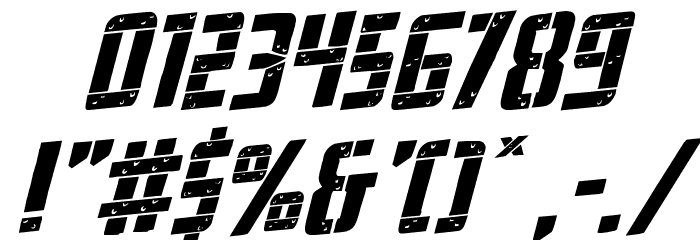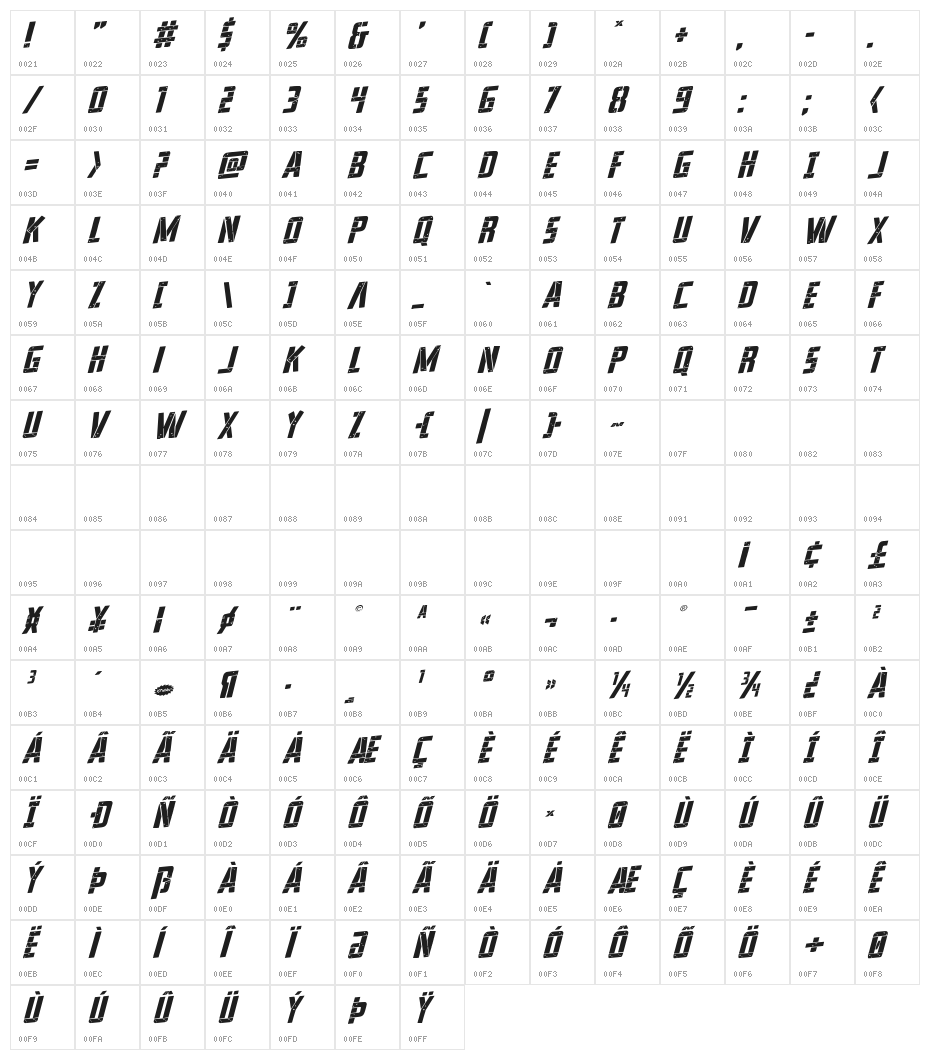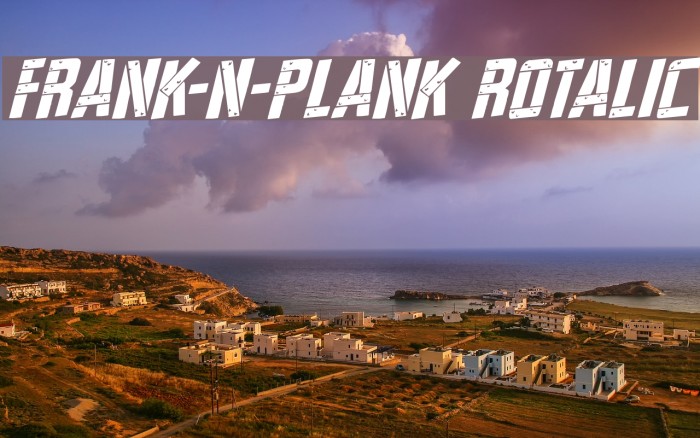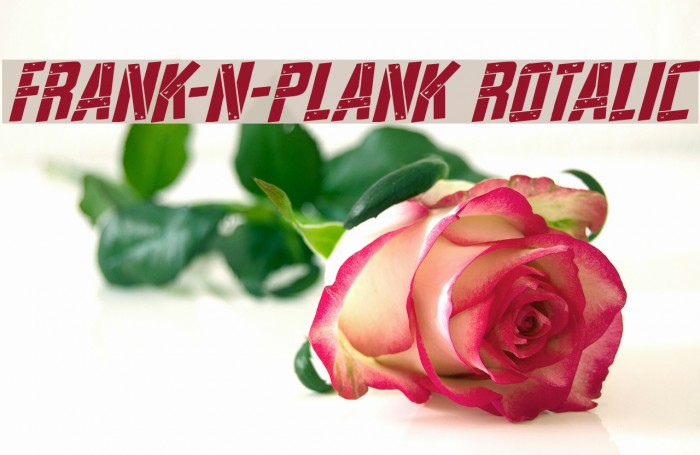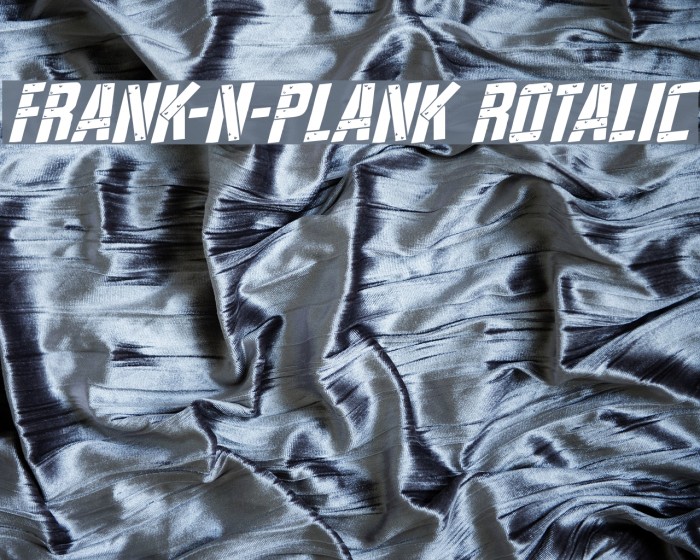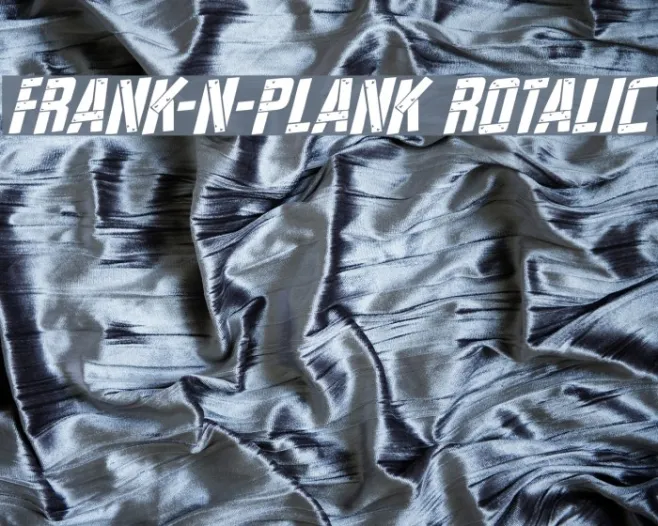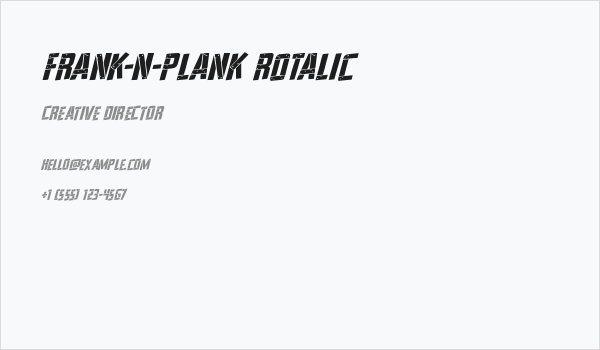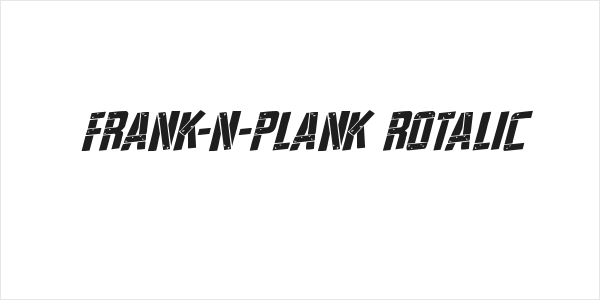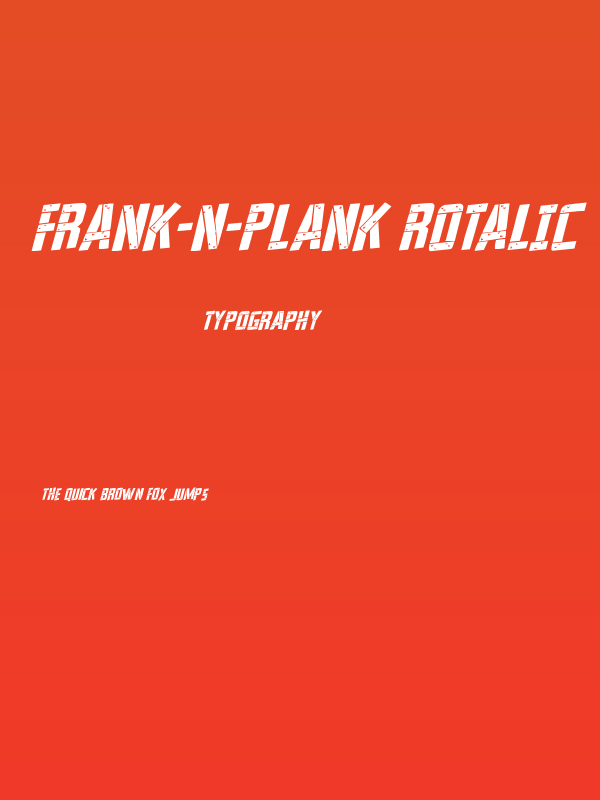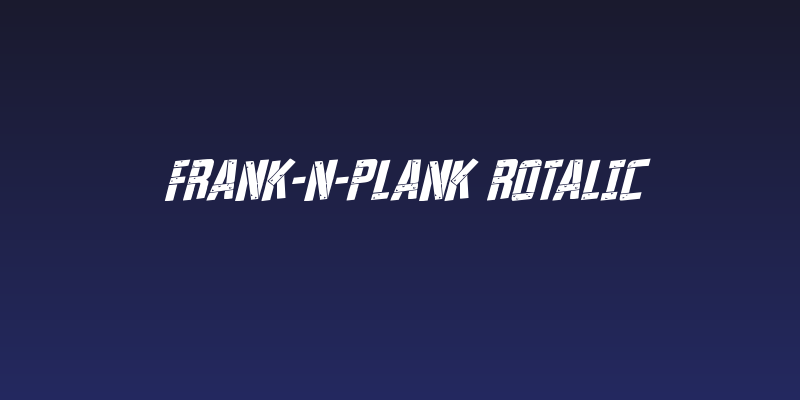
Frank-n-Plank Rotalic Font
Frank-n-Plank Rotalic Description
This font features a bold, dynamic style with a distinct industrial and mechanical aesthetic. Each character is designed with a slanted, italicized form, giving it a sense of motion and energy. The letters are adorned with rivet-like details, enhancing the mechanical theme and adding a textured appearance. The font's bold weight and strong presence make it ideal for attention-grabbing designs. Its unique style is both modern and edgy, suitable for projects that require a standout, unconventional look.
| Overall Style | Modern, Industrial |
| Proposed Projects | Ideal for branding, posters, video game graphics, and industrial-themed designs. |